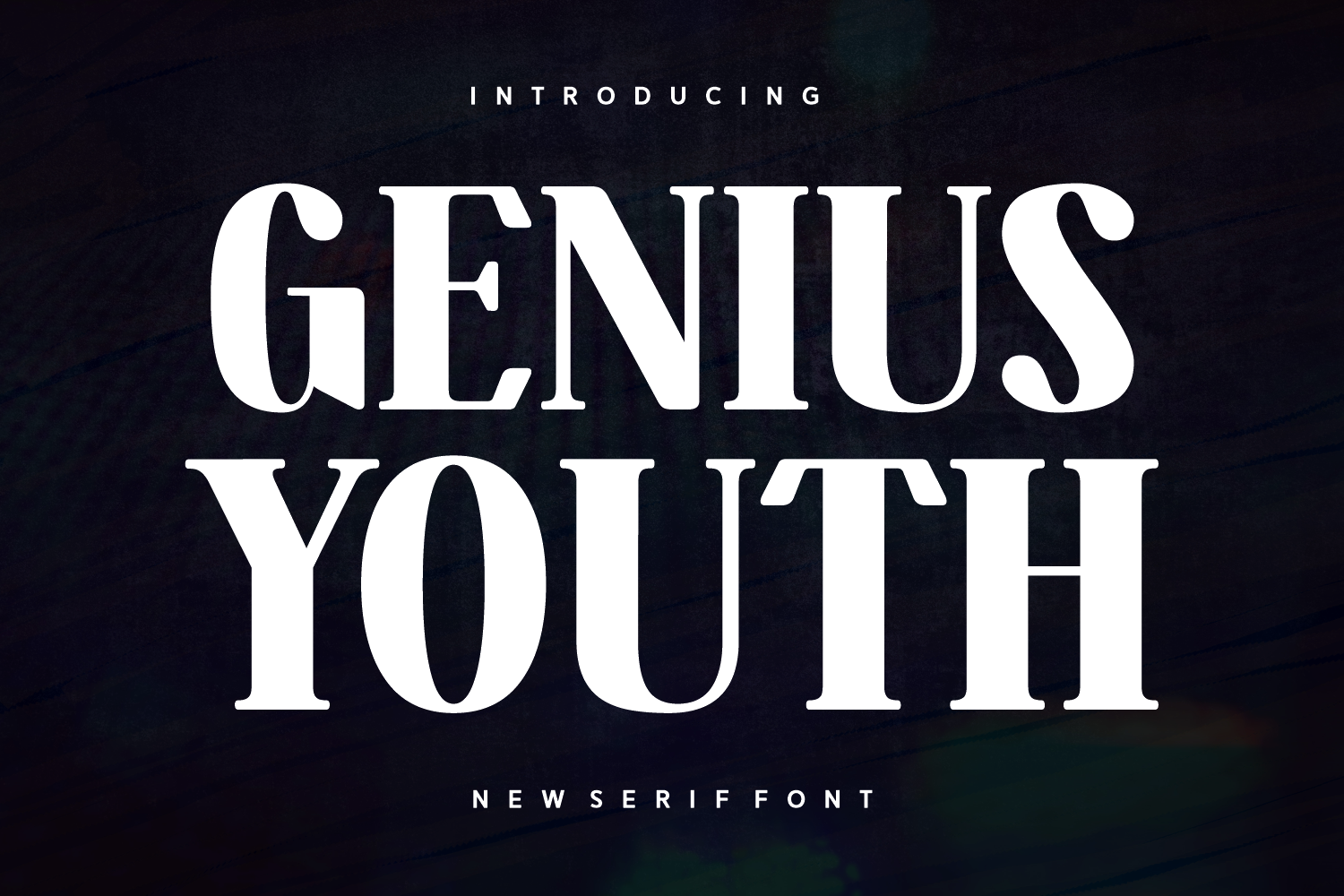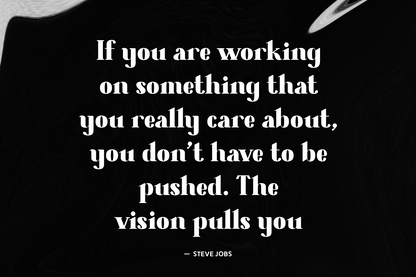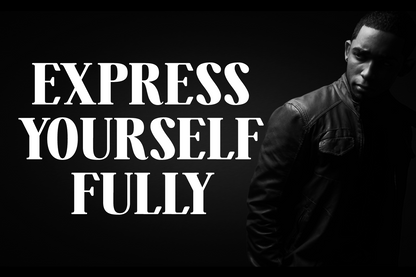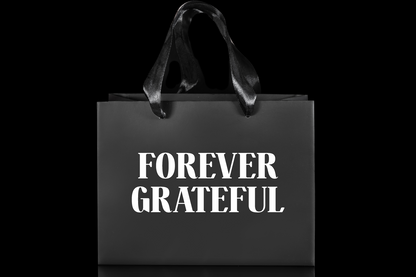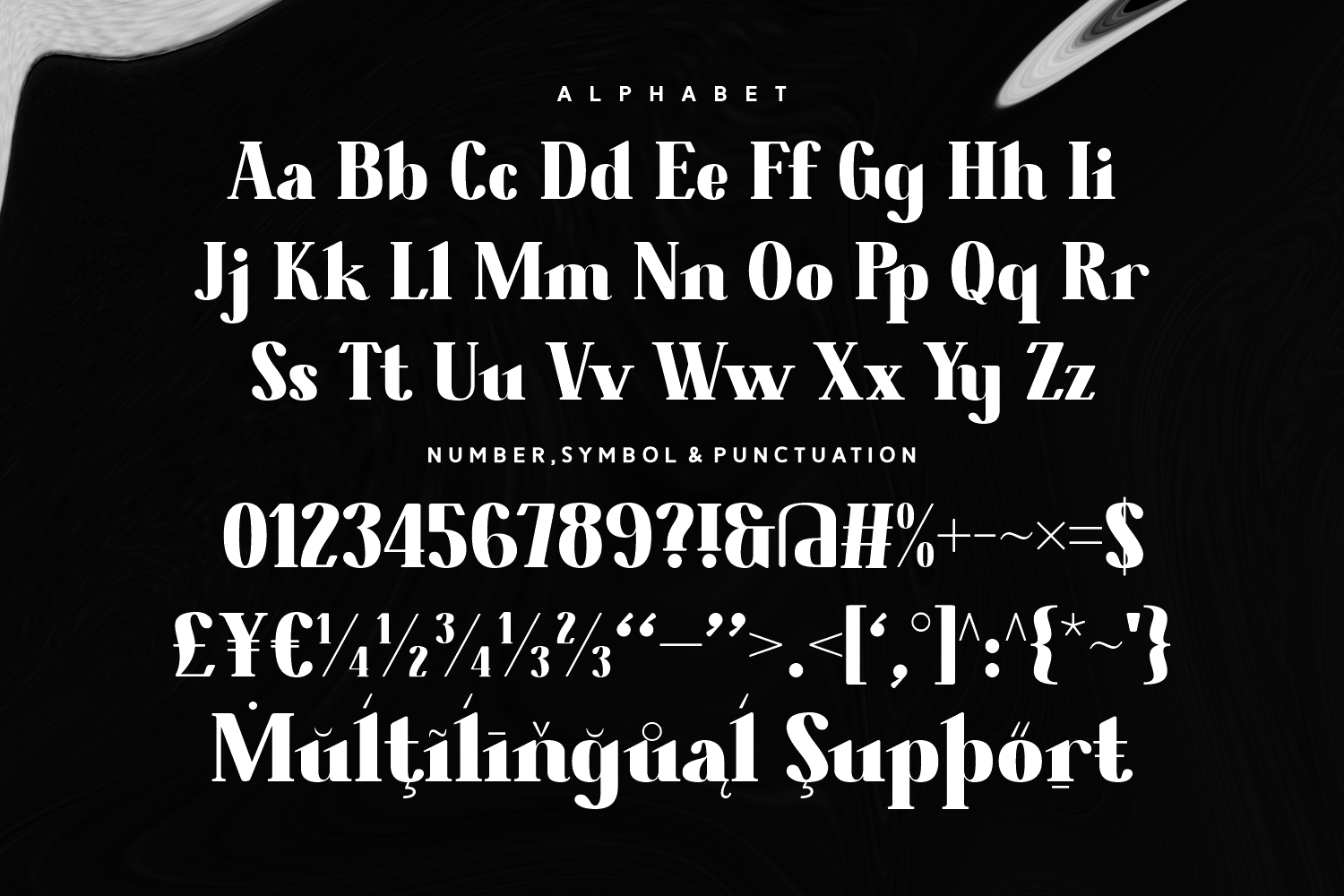
Genius Youth is a bold serif typeface with vintage flair and youthful energy. Its thick strokes and angled serifs make it a striking option for posters, merchandise, retro branding, and expressive headlines.